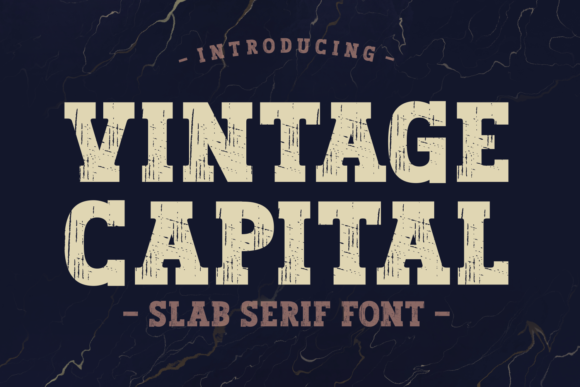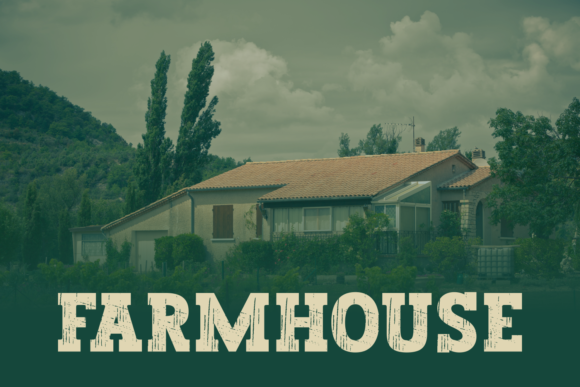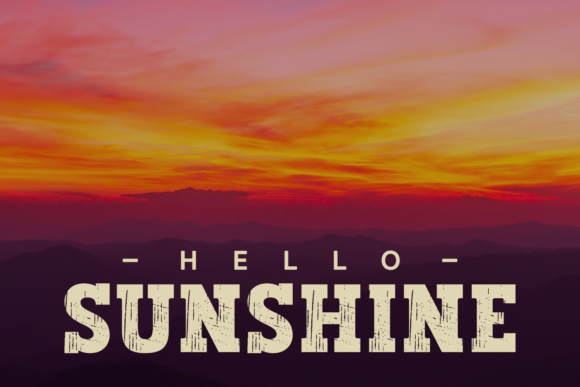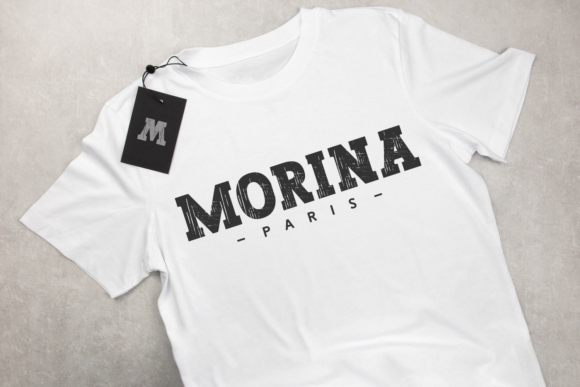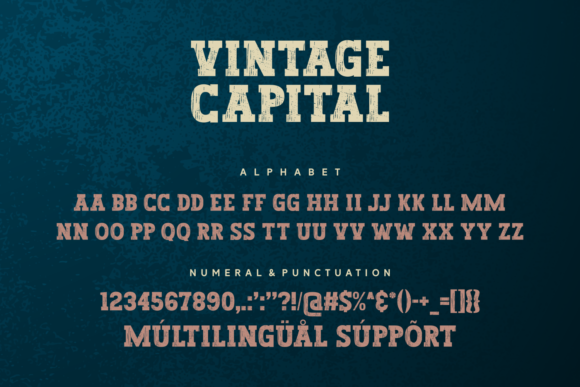
Vintage Capital: A Bold and Textured Slab Serif Font
Vintage Capital is a striking slab serif font that combines boldness with a rough texture and thick letterforms. This versatile typeface is designed to elevate a wide range of crafting ideas, making it perfect for various creative projects.
Key Features of Vintage Capital
- Bold Design: Features strong, eye-catching letterforms that command attention.
- Rough Texture: Offers a unique, weathered look that adds character to designs.
- Thick Letters: Provides substantial characters for maximum visual impact.
- Slab Serif Structure: Incorporates the characteristic thick, rectangular serifs typical of slab serif fonts.
- Versatile Application: Suitable for a wide range of projects, from cards to branding and labels.
Ideal Uses for Vintage Capital
Vintage Capital’s unique characteristics make it particularly well-suited for:
- Greeting cards and invitations with a vintage flair
- Branding for businesses with a rustic or retro aesthetic
- Product labels and packaging design
- Poster designs for events with a vintage touch
- Logo creation for brands seeking a bold, textured look
When incorporating Vintage Capital into your designs, consider these tips:
- Use for headlines or short blocks of text to maximize its bold and textured impact
- Experiment with different sizes to highlight the font’s unique details
- Consider pairing with simpler sans-serif fonts for body text to create contrast
- Take advantage of its versatility across various crafting projects
Vintage Capital is an excellent choice for designers looking to add a bold, textured slab serif font to their typographic toolkit. Its ability to elevate various crafting ideas makes it stand out in the world of typography. Whether you’re working on logo designs for vintage-inspired brands, creating layouts for greeting cards, or developing content that requires a touch of rustic charm, Vintage Capital offers the perfect blend of boldness and texture.
Add Vintage Capital confidently to your favorite creations and prepare to be amazed by the outcomes it generates. From eye-catching cards to engaging branding elements, this font provides the tools to create impactful and memorable typography that resonates with audiences seeking a bold, vintage aesthetic. It’s versatile enough to be used in various contexts, from vintage-inspired designs to more playful layouts that need a touch of rustic charm.
Whether you’re creating a nostalgic and weathered atmosphere or aiming for a more bold and impactful mood in your designs, Vintage Capital can adapt to your needs. Its flexibility allows it to work well in both vintage-style projects and contemporary designs that require a bold, textured touch. For those looking to add a dash of vintage charm to their work, this font can even complement seasonal creations with a unique, bold twist.